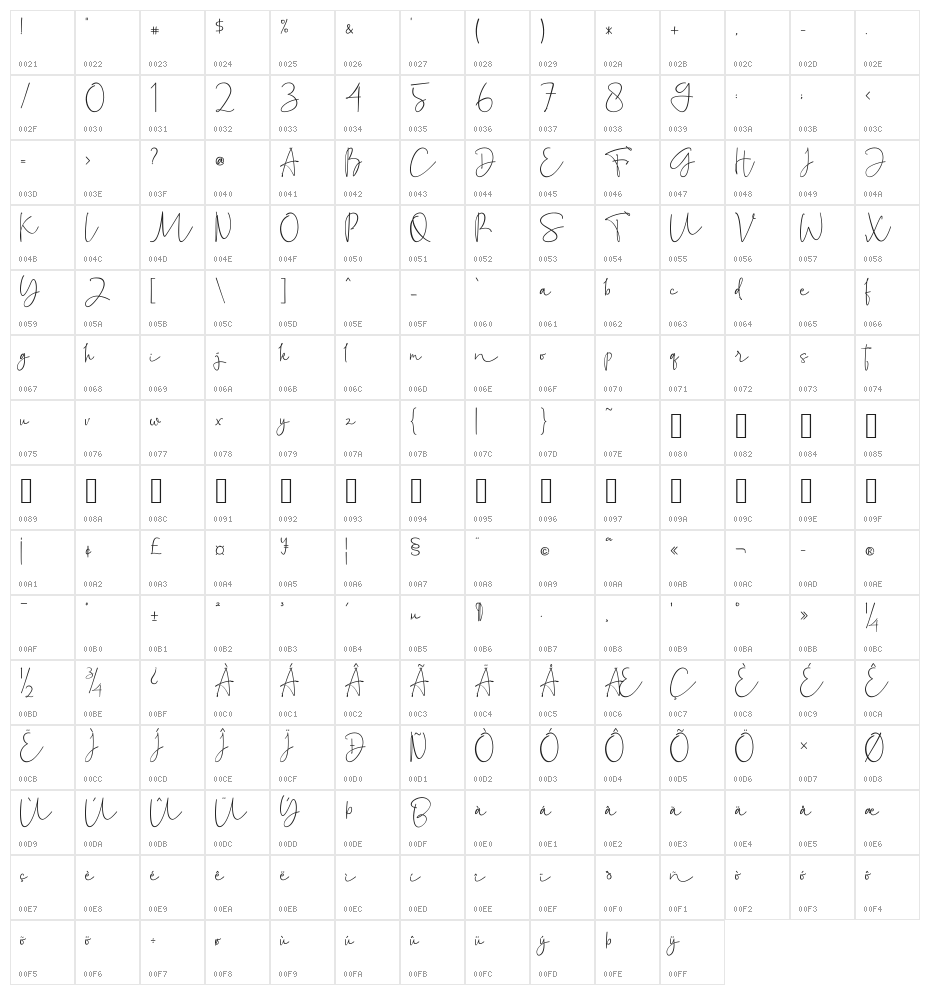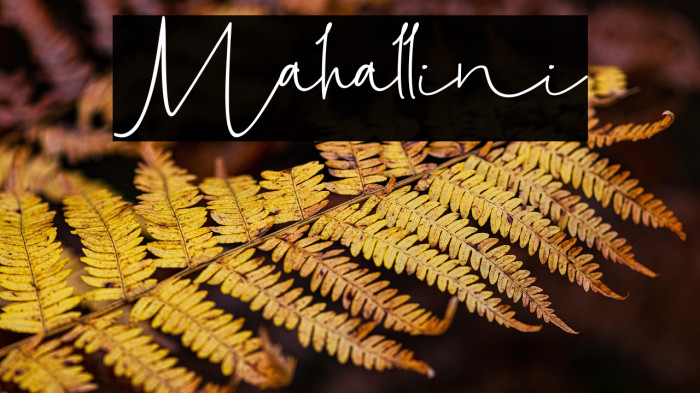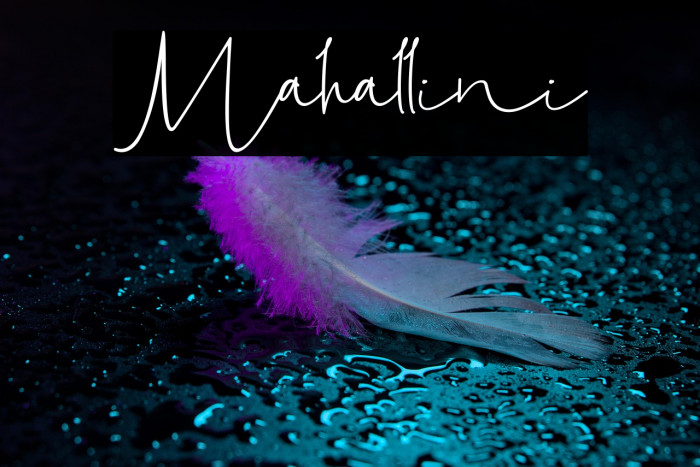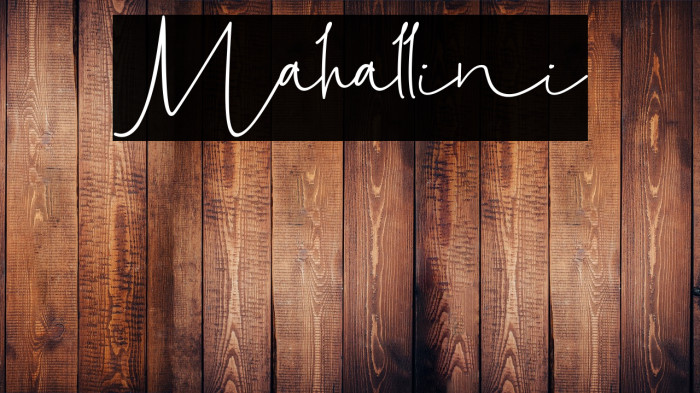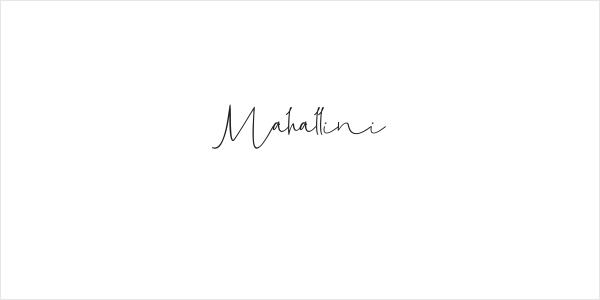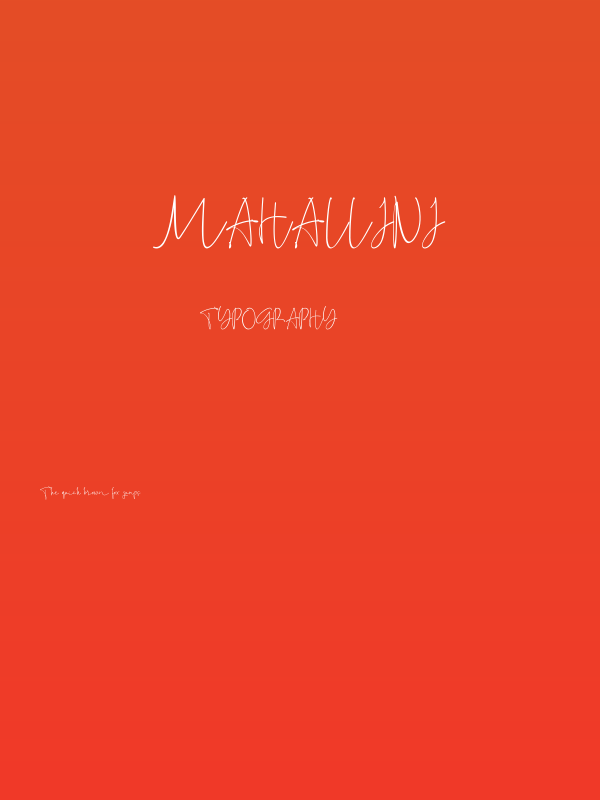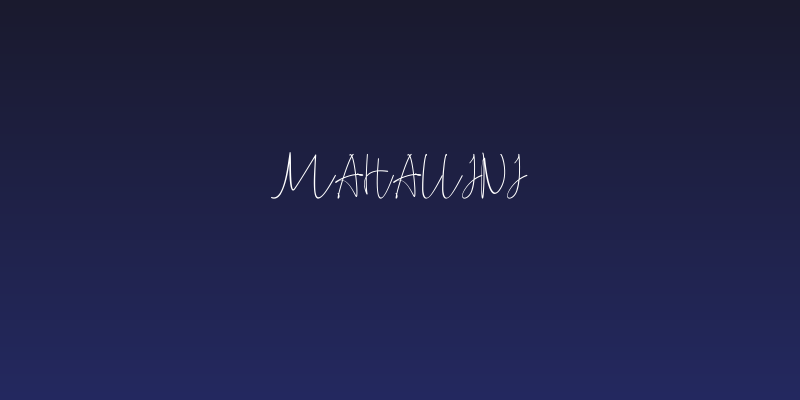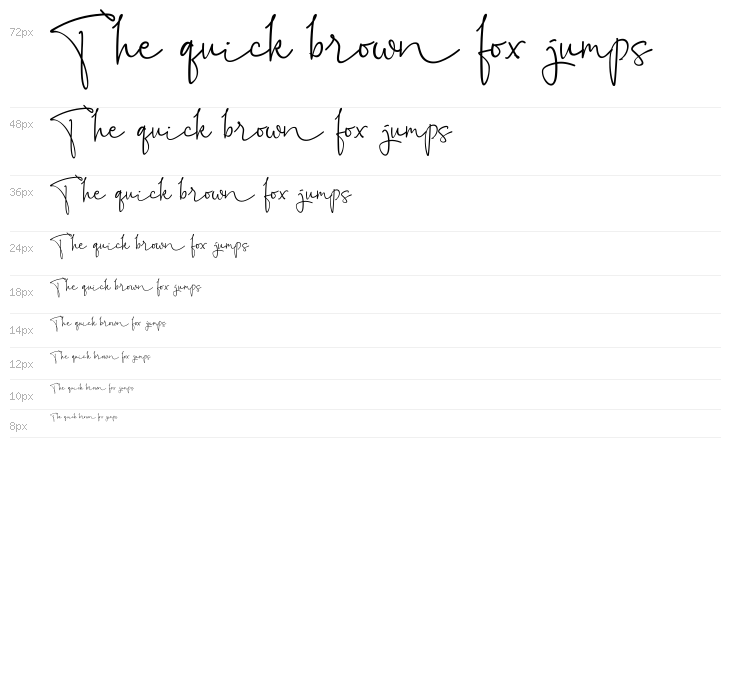
Mahallini Font
Mahallini Description
This font features a playful and elegant handwritten style, characterized by its flowing, cursive-like strokes. The uppercase letters are bold and expressive, with a slight slant that adds a dynamic feel. The lowercase letters maintain a consistent flow, enhancing readability while retaining a personal touch. Numbers are distinct and clear, complementing the overall aesthetic. Special characters are thoughtfully designed, ensuring they blend seamlessly with the rest of the font. The overall appearance is both stylish and approachable, making it suitable for a variety of creative projects.